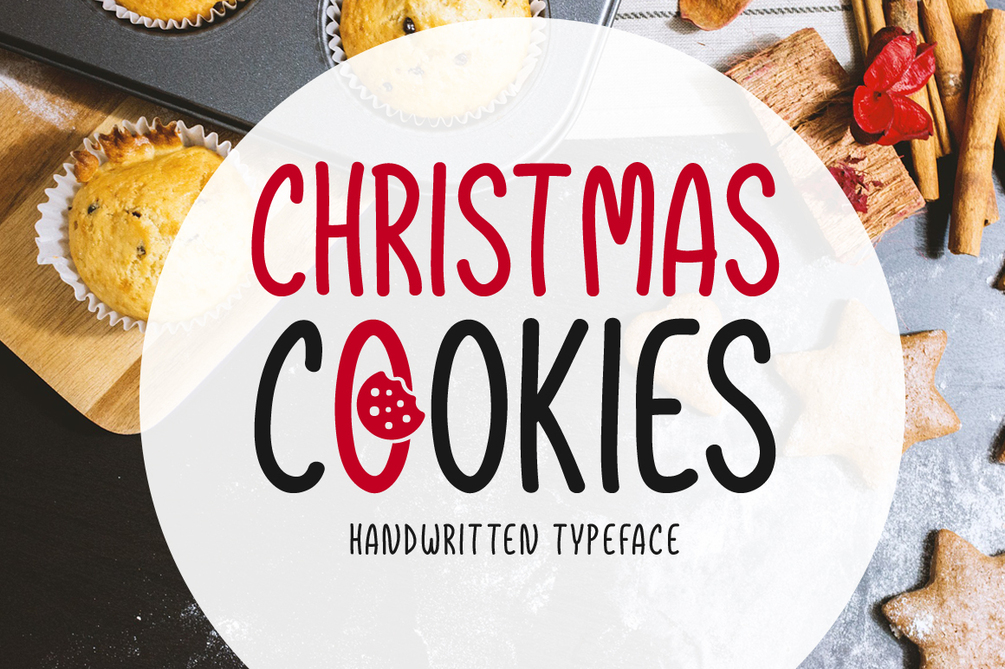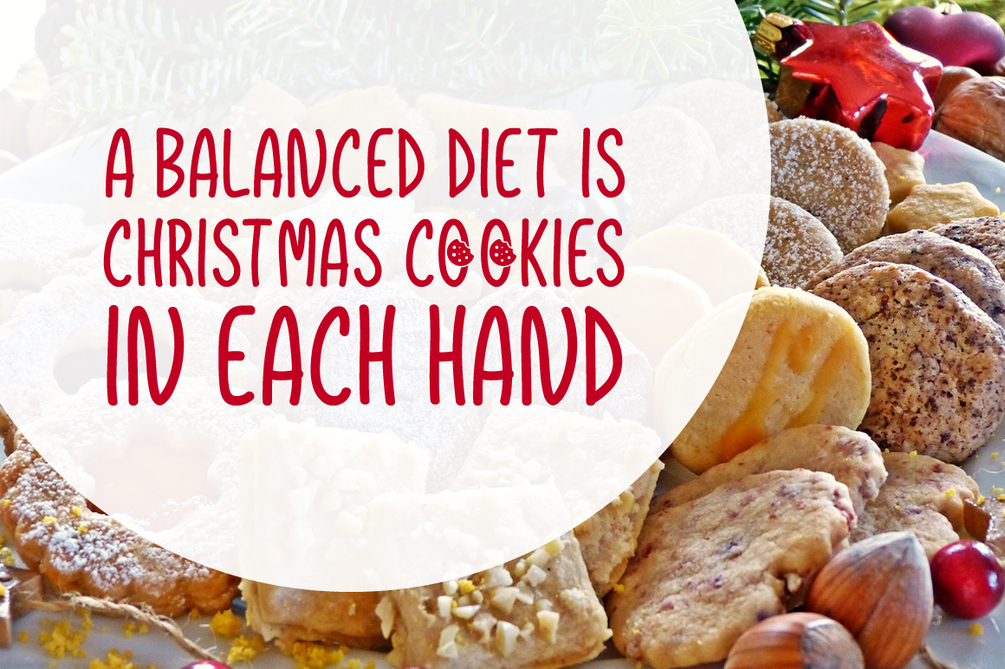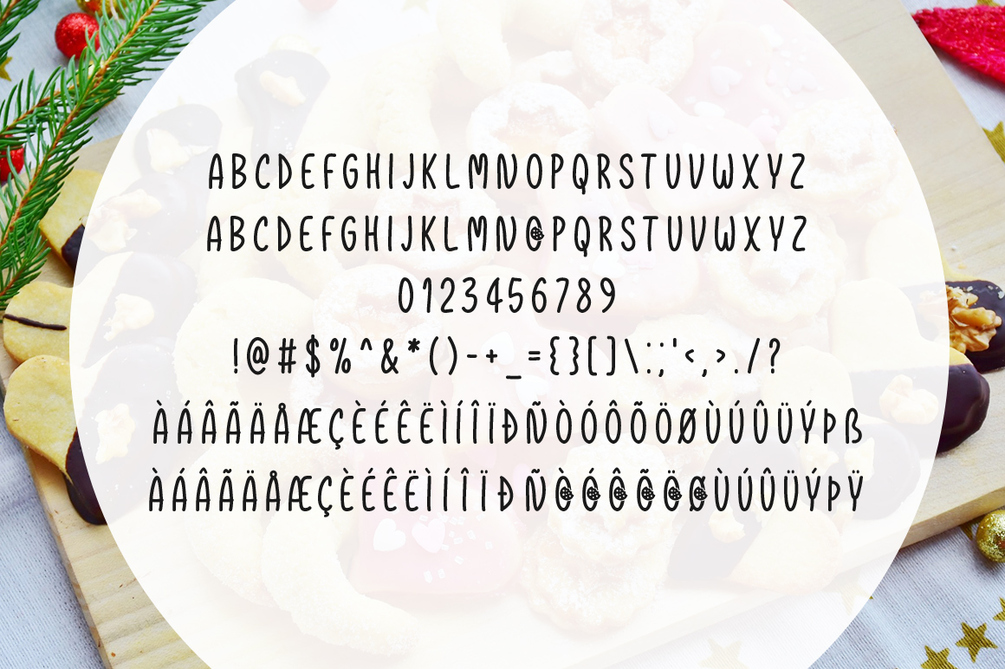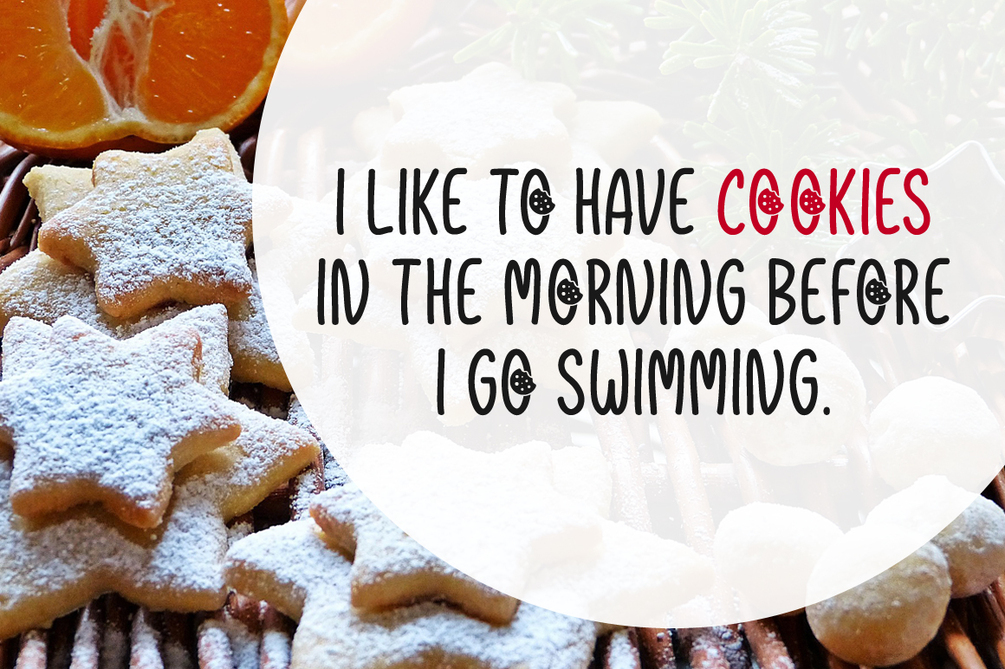
Christmas Cookies
Christmas Cookies is a brand new handwritten font. Christmas Cookies is perfectly suited for stationery, logos, t-shirt, paper, print design, website header, photo frame, flyer, music cover, poster, image slider and much more.